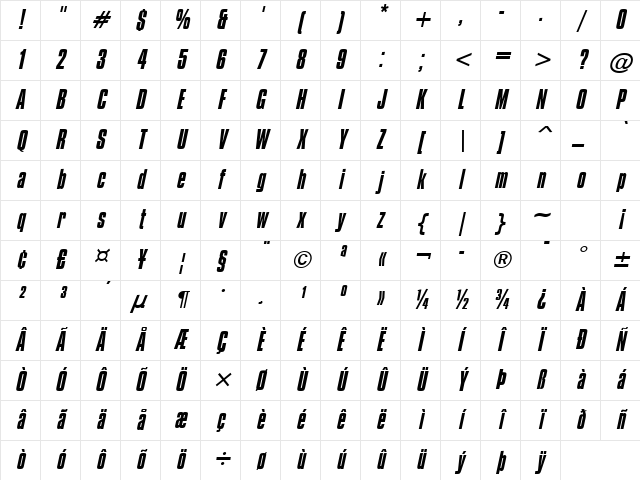
Commador is a composed and adaptable typeface that performs quietly and consistently across a wide range of design contexts. The slanted form adds forward momentum and visual energy.
Pro Tip: Use Commador for emphasis, pull quotes, and subheadings where its slanted energy can add rhythm to the layout.